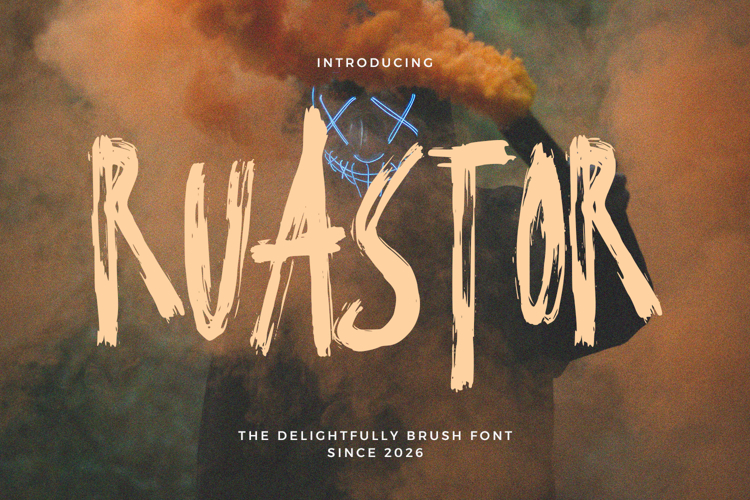
Ruastor - The Delightfully Brush Font
Ruastor is a delightfully crafted brush font featuring lively hand-painted strokes and a cheerful expressive flow. Designed to feel warm, friendly, and full of character, this font blends natural brush texture with smooth readability. Its organic movement and playful rhythm make it perfect for branding, headlines, invitations, social media graphics, packaging, and creative projects that need a joyful handcrafted touch. Ruastor delivers charm, personality, and modern brush elegance in every letter.